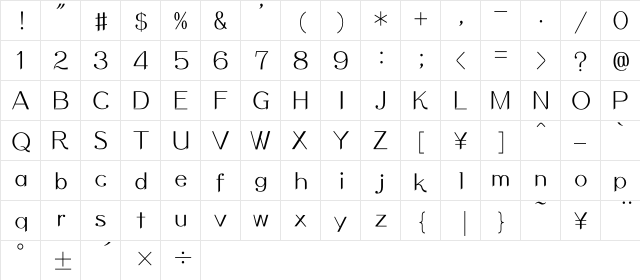
id-asobi_LightOT Regular
Design Context for id-asobi_LightOT Typeface
id-asobi_LightOT is a composed and adaptable typeface that performs quietly and consistently across a wide range of design contexts. The delicate stroke weight brings airiness and refinement to layouts.